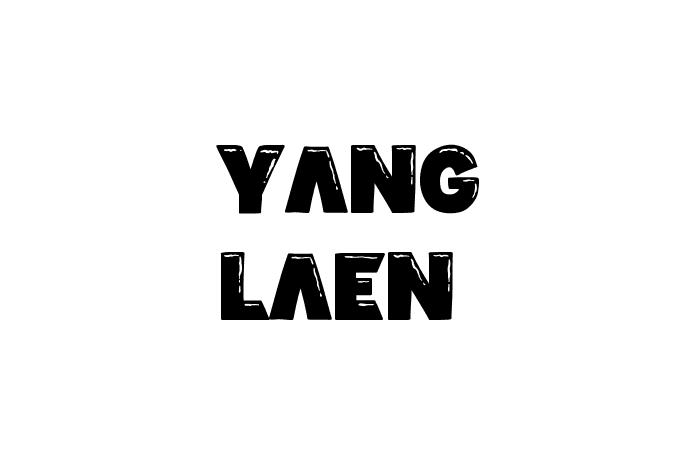
DoodleChalk Font
DoodleChalk Font is a playful cartoon font that brings smiles to your text.this font suitable for an elegant & luxury logo, book or movie title design, fashion brand, magazine, clothes, lettering, quotes, and so much more.